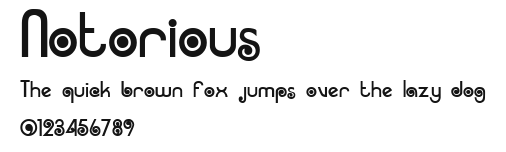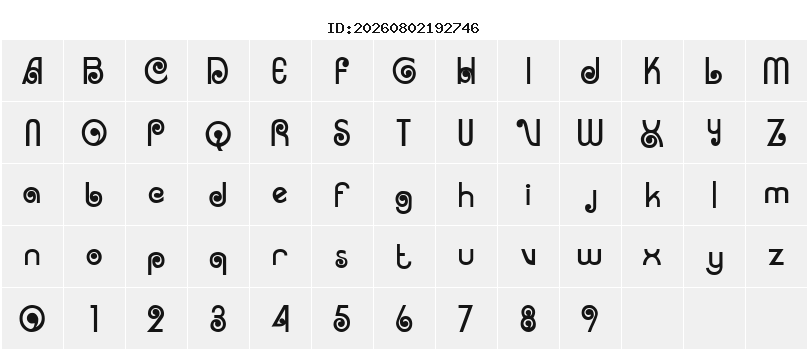
• Font Name: Notorious
About Notorious.ttf
Notorious.ttf is a modern, elegant sans-serif font designed for ultimate readability and visual harmony. Perfect for branding, headlines, web design, and print materials.